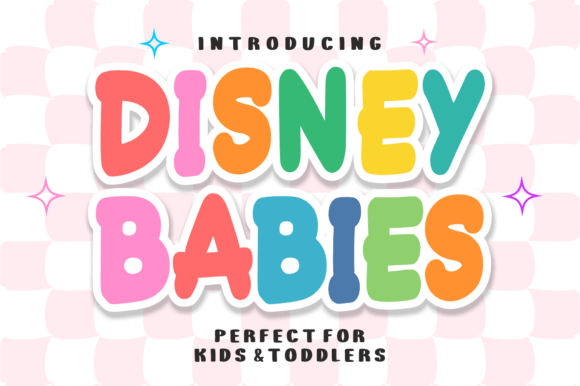
Bringing Magic to Your Designs
Have you ever stared at a blank design canvas, waiting for that spark of creativity to strike? For many designers, the perfect font can be the key to unlocking that magic. And if you’re looking for a font that embodies the essence of childhood wonder, you’re in luck! Introducing the Disney Babies Font, a charming and chunky bubble display font designed to capture the sweet and joyful spirit of youth.
With its soft, rounded shapes and friendly silhouette, this font is the perfect choice for creating adorable designs that stand out with a “pop” of cuteness. Whether you’re crafting baby shower invitations, custom kids’ apparel, or social media graphics, the Disney Babies Font is sure to bring a smile to your audience’s faces. Its high visibility, unique hand-drawn personality, and optimized cutting capabilities make it a valuable addition to any designer’s toolkit.
Disney Babies Font Key Features
- Font Family: Disney Babies Font is a custom font designed by Disney, featuring adorable baby characters from various Disney franchises.
- Character Set: Includes a wide range of characters, including uppercase and lowercase letters, numbers, punctuation marks, and special characters.
- Unique Characteristics: The font’s unique design and charm make it perfect for creating whimsical and playful designs, such as children’s book illustrations, nursery decor, and family-themed projects.
Disney Babies Font Review
Overall, I think the Disney Babies Font is a delightful choice for those looking for a playful and whimsical feel. ✨ The font’s design is reminiscent of classic Disney illustrations, making it perfect for projects that require a nostalgic touch.
The font’s character set is well-designed, with a range of expressive faces and accessories that will suit most projects. ✨ The bold and italic styles add an extra layer of versatility, making it easy to adapt the font to different contexts.
However, there are some limitations to consider: ⚠️ The font may not be suitable for projects that require a more modern or sleek feel. Additionally, some characters may not be as detailed or refined as others, which could be a drawback for designers who value precision.
- Classic Disney-inspired design
- Range of expressive faces and accessories
- Bold and italic styles available
- Not suitable for modern or sleek designs
- Some characters may lack detail or refinement
Tips for Getting the Most Out of the Disney Babies Font
Use the Disney Babies Font to add a playful touch to your designs, especially for children’s products, nursery decor, or birthday invitations.
Experiment with different font sizes and styles to create a whimsical look.
Combine the Disney Babies Font with other playful fonts or graphics for a cohesive design.
The Disney Babies Font is perfect for:
Children’s products (e.g., toys, clothing, nursery decor)
Birthday invitations and party decorations
Family photo albums and scrapbooking
Personalized gifts and stationery
Alternatives to Disney Babies Font
Great Vibes is a beautiful, cursive script font that is perfect for creating a whimsical and playful atmosphere. It is ideal for use in designs that require a sense of nostalgia and elegance. Great Vibes is a more elegant alternative to Disney Babies Font, with a more refined and sophisticated look.
Pacifico is a stylish and modern script font that is great for creating a beachy or tropical vibe. It is perfect for use in designs that require a sense of relaxation and calmness. Pacifico is a more relaxed alternative to Disney Babies Font, with a more laid-back and casual look.
Carolyna Pro is a elegant and sophisticated script font that is perfect for creating a luxurious and high-end atmosphere. It is ideal for use in designs that require a sense of glamour and sophistication. Carolyna Pro is a more luxurious alternative to Disney Babies Font, with a more refined and polished look.